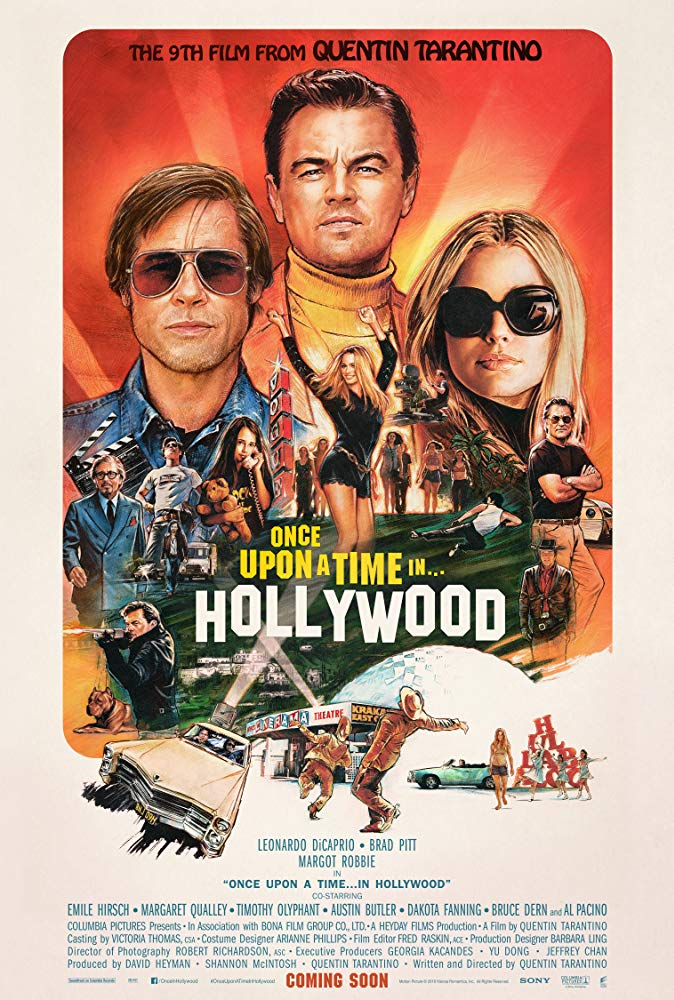
Once Upon a Time in Hollywood Font
ComedyOnce Upon a Time in Hollywood is a 2019 movie directed by Quentin Tarantino, set in 1969 Hollywood, following the lives of Rick Dalton, a fading actor, and his stunt double Cliff Booth as they navigate the changing industry. The film features an all-star cast including Leonardo DiCaprio, Brad Pitt, and Margot Robbie.
Once Upon a Time in Hollywood's title on the poster is written in either a sans serif font ITC Machine created by Bonder and Carnase or a free font SF Hollywood Hills, which is reminiscent of the iconic Hollywood sign. The line at the top of the poster is written in Hobo by Morris Fuller Benton.